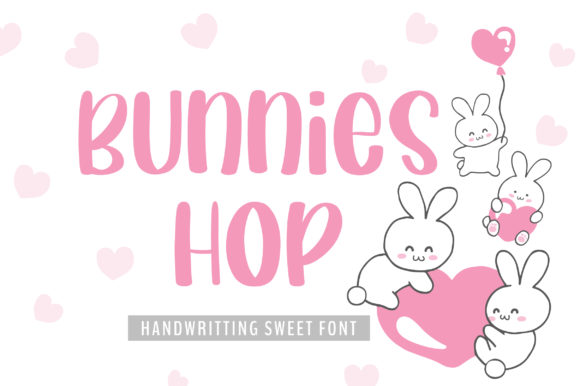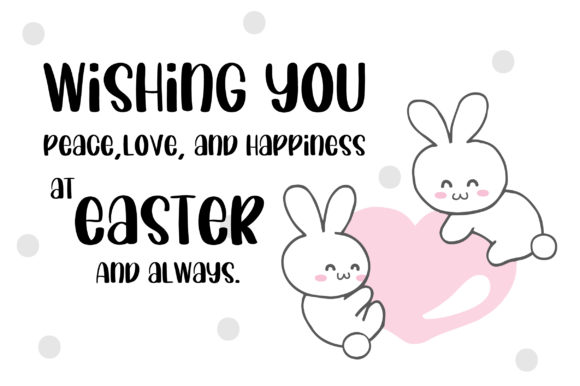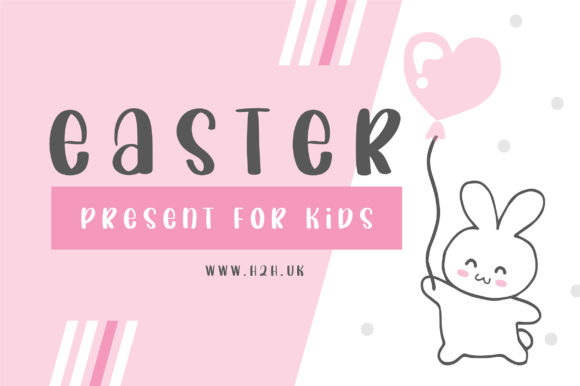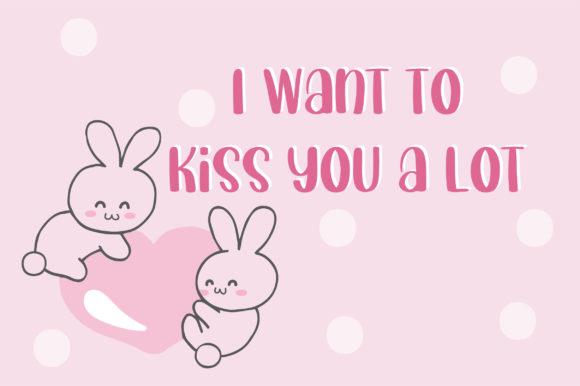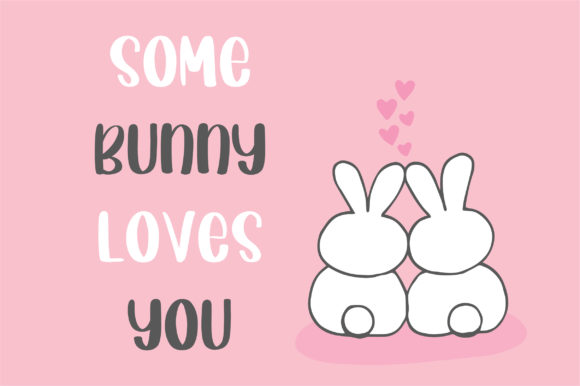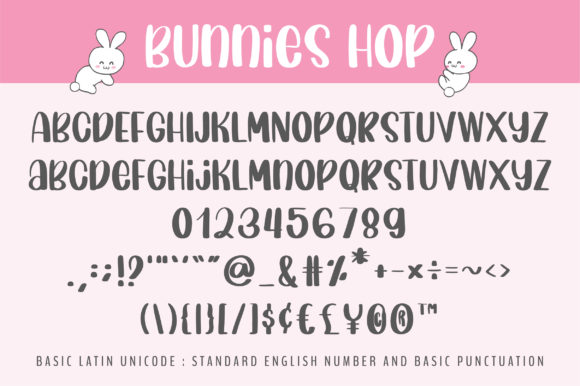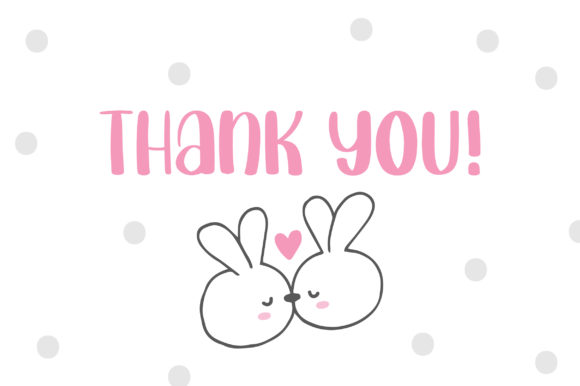
Bunnies Hop Font
About Bunnies Hop Font
Bunnies Hop is a sweet and cute handwritten font. This beautiful font is the perfect choice for any crafting project!